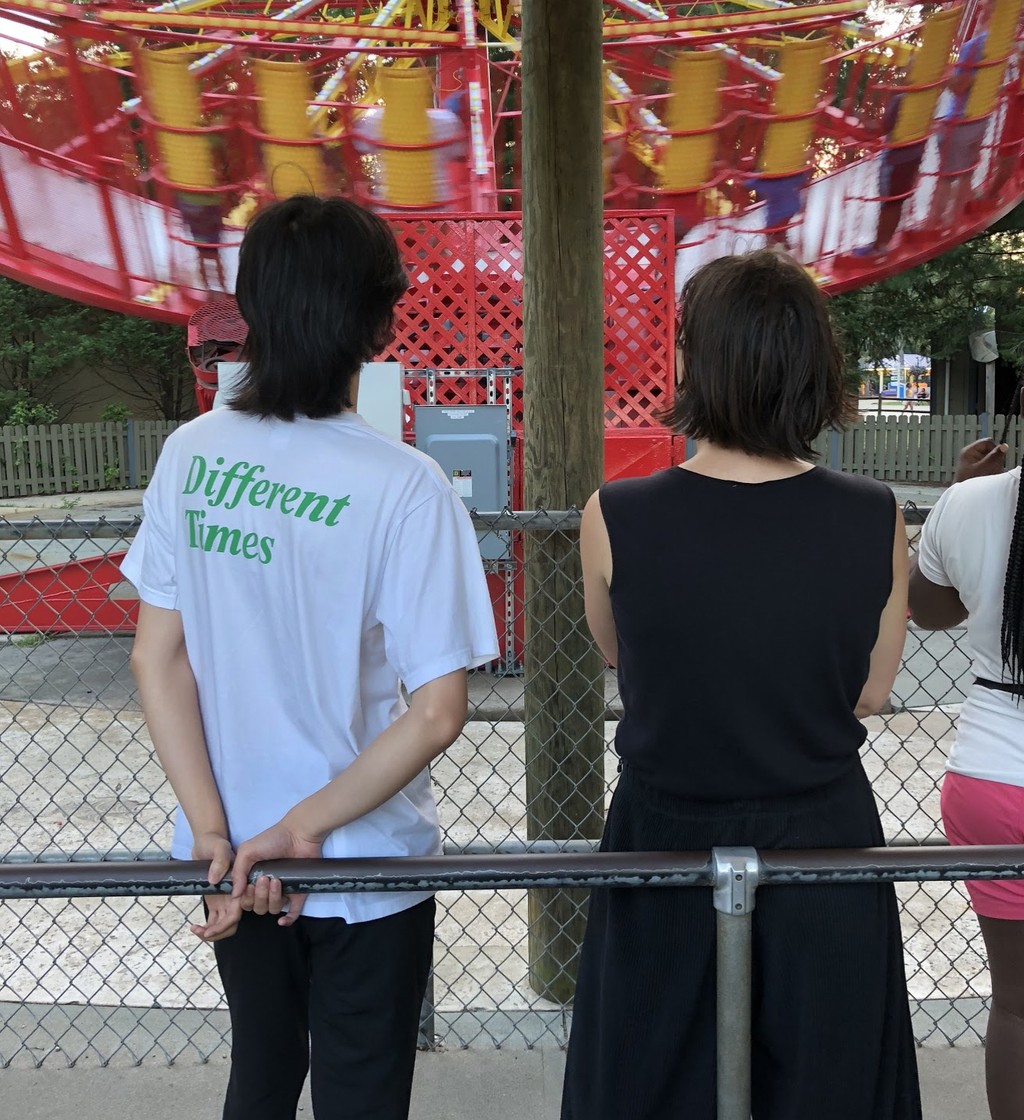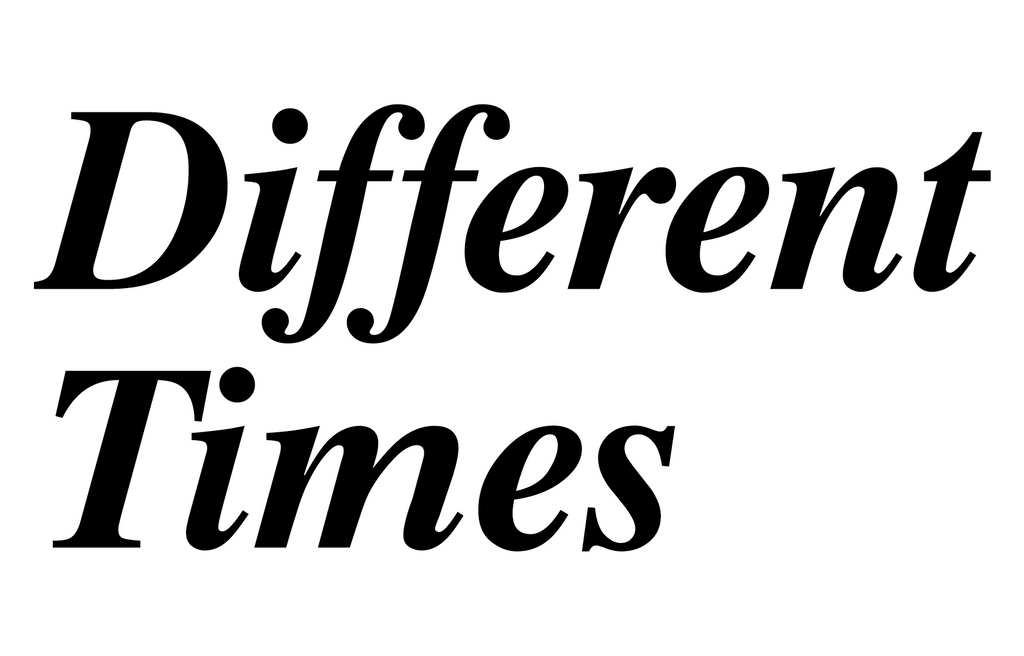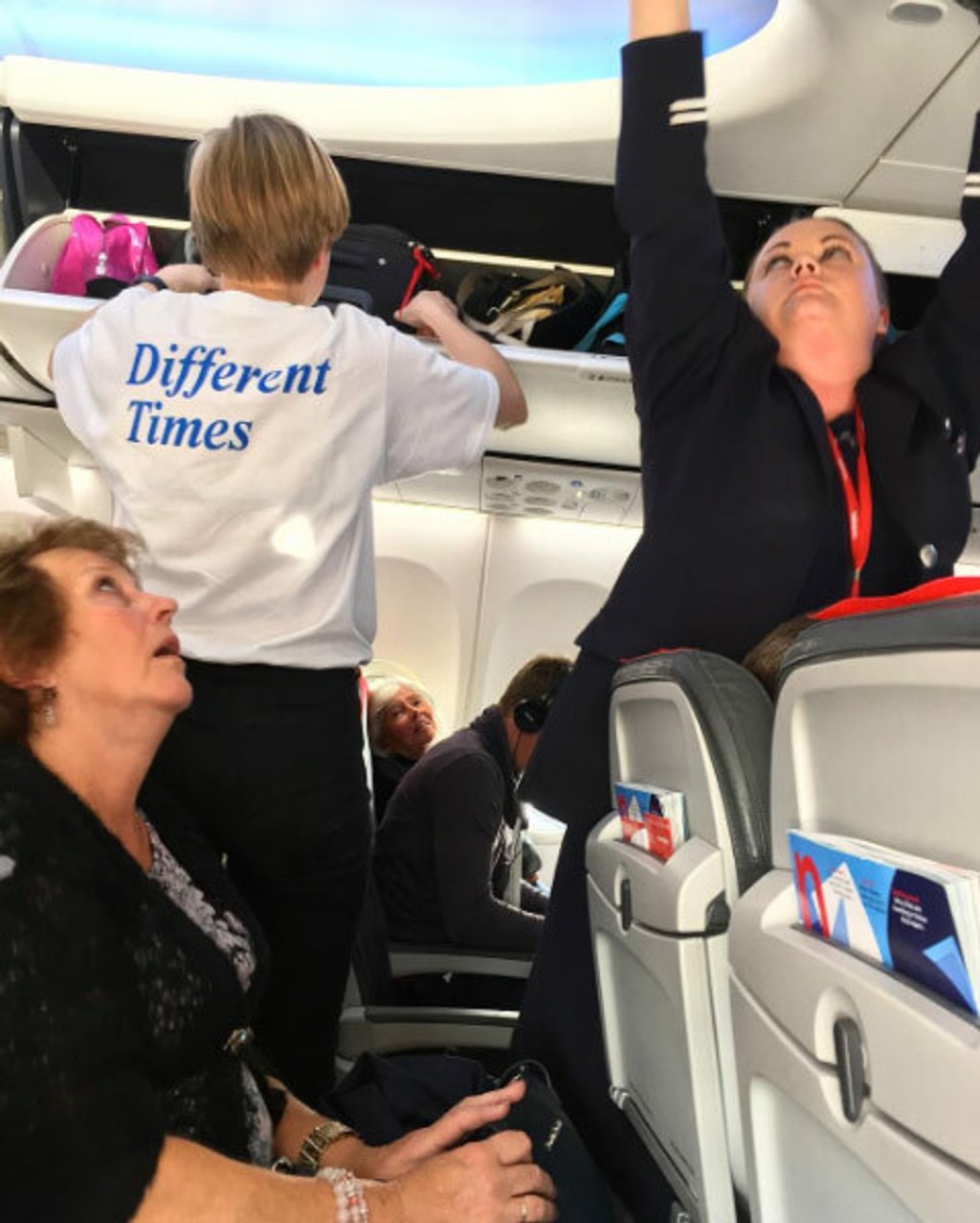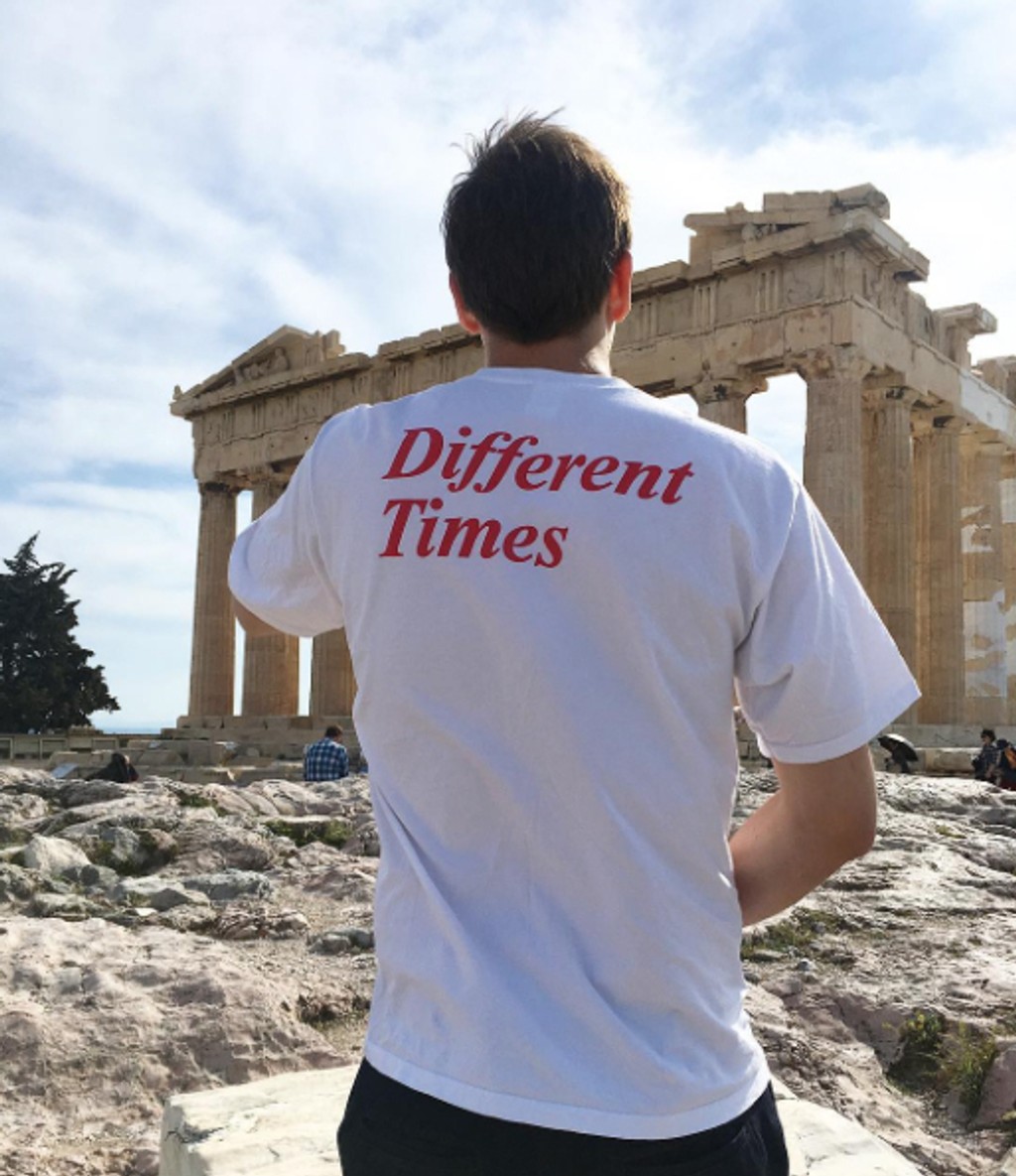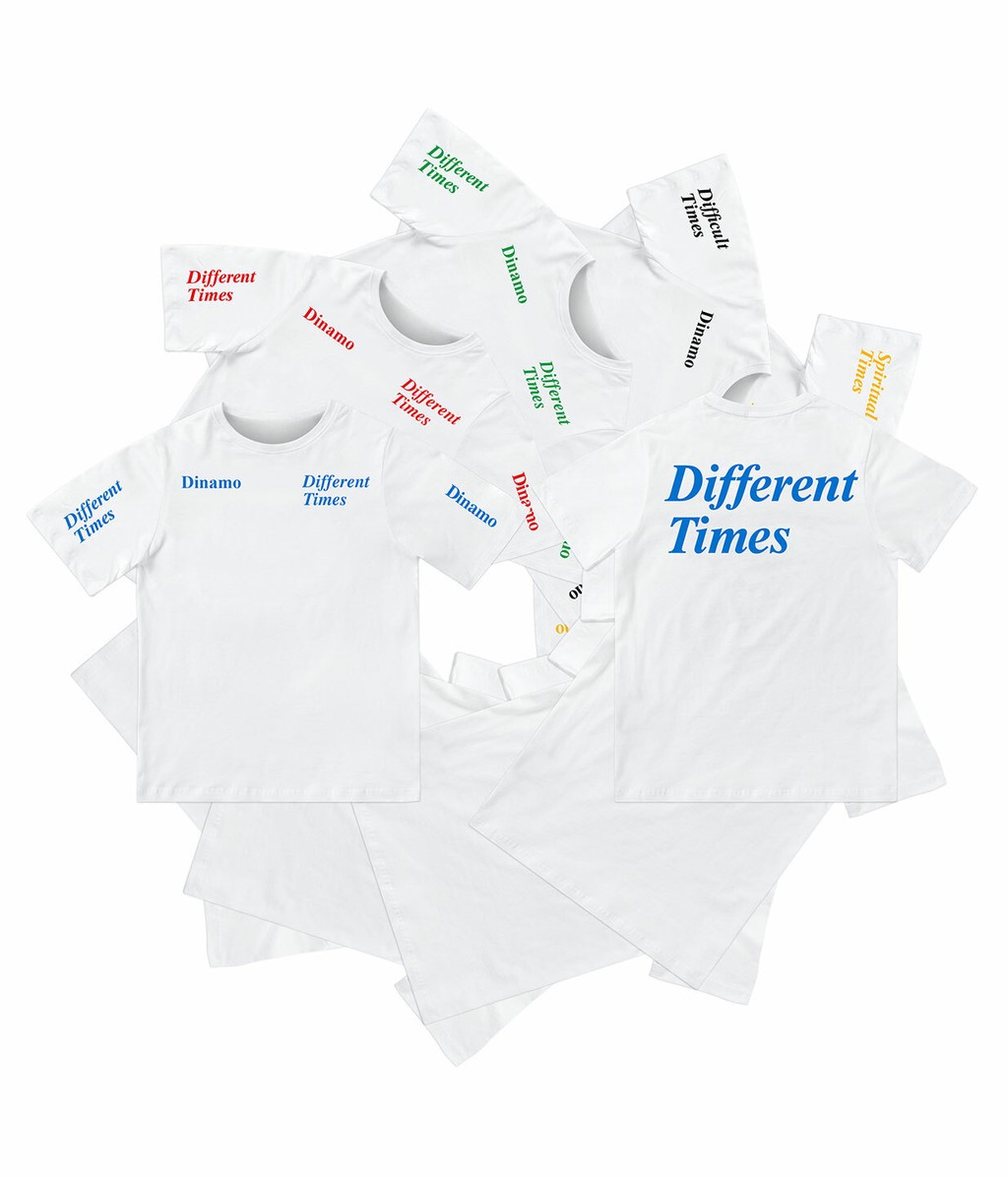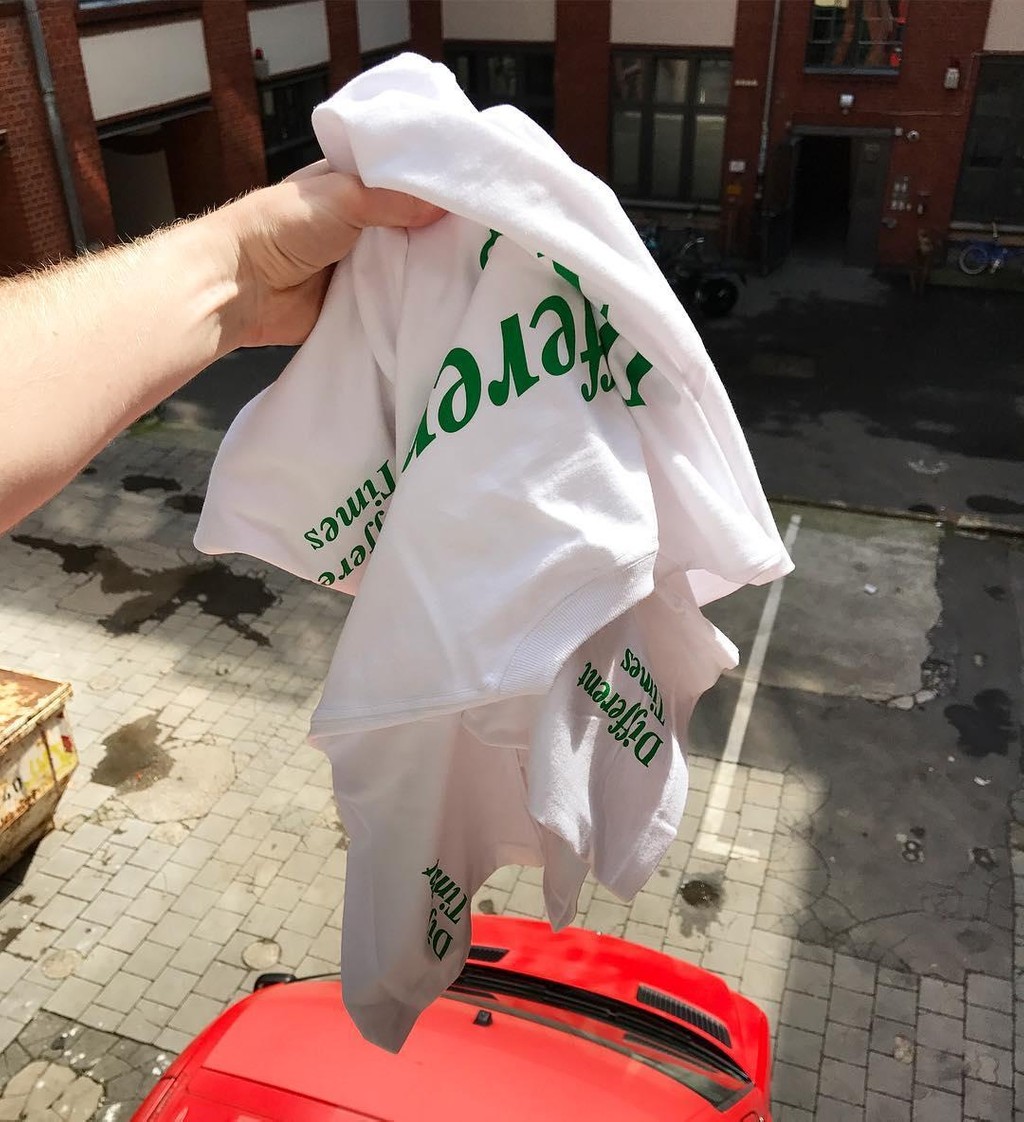
Different Times T-Shirt
Different Times features 5 different, digitally available version of the ubiquitous Times typeface: Times Ten, Times New Roman, Times LT, AT CG Times and MT Times Bitmapped.
For each re-edition of the t-shirt, the template and slogan has been modified according to context of its release. “Difficult Times” got issued after Trump’s election and “Spiritual Times” on the occasion of a short stay in Los Angeles, California. So far, 5 editions have been released with a print run of 120 each.